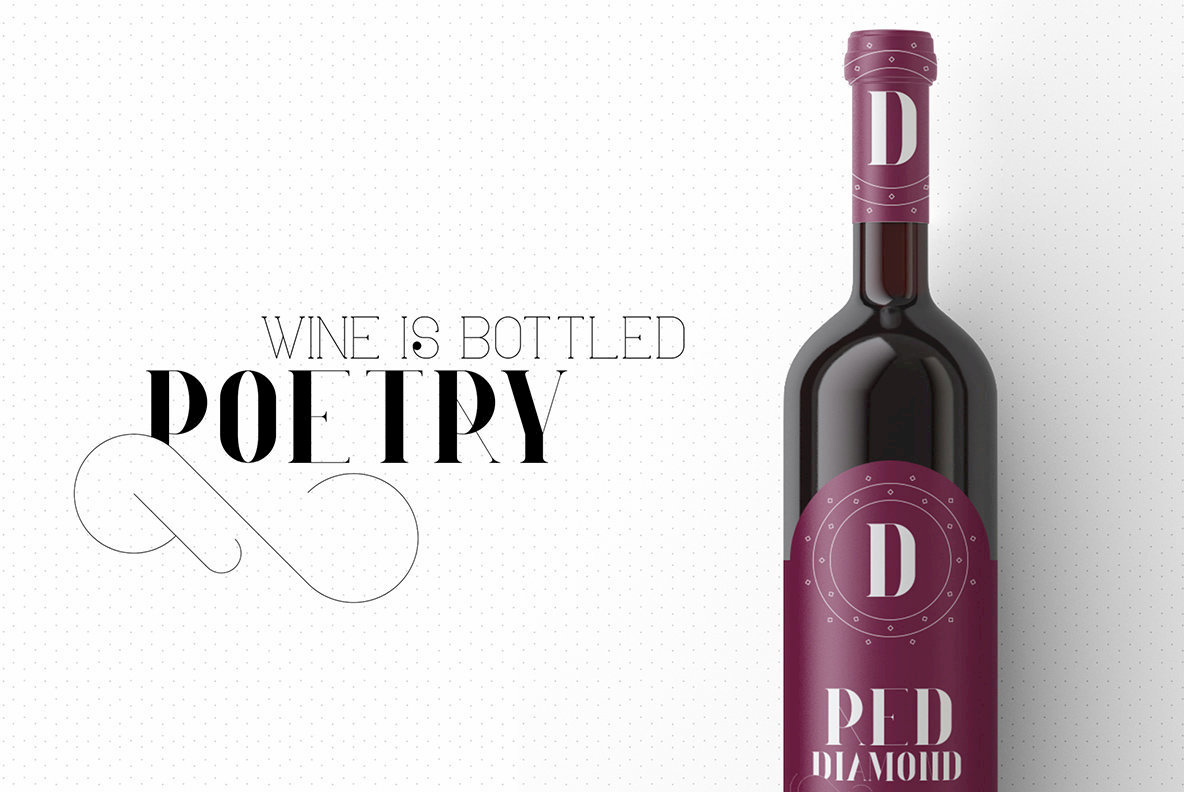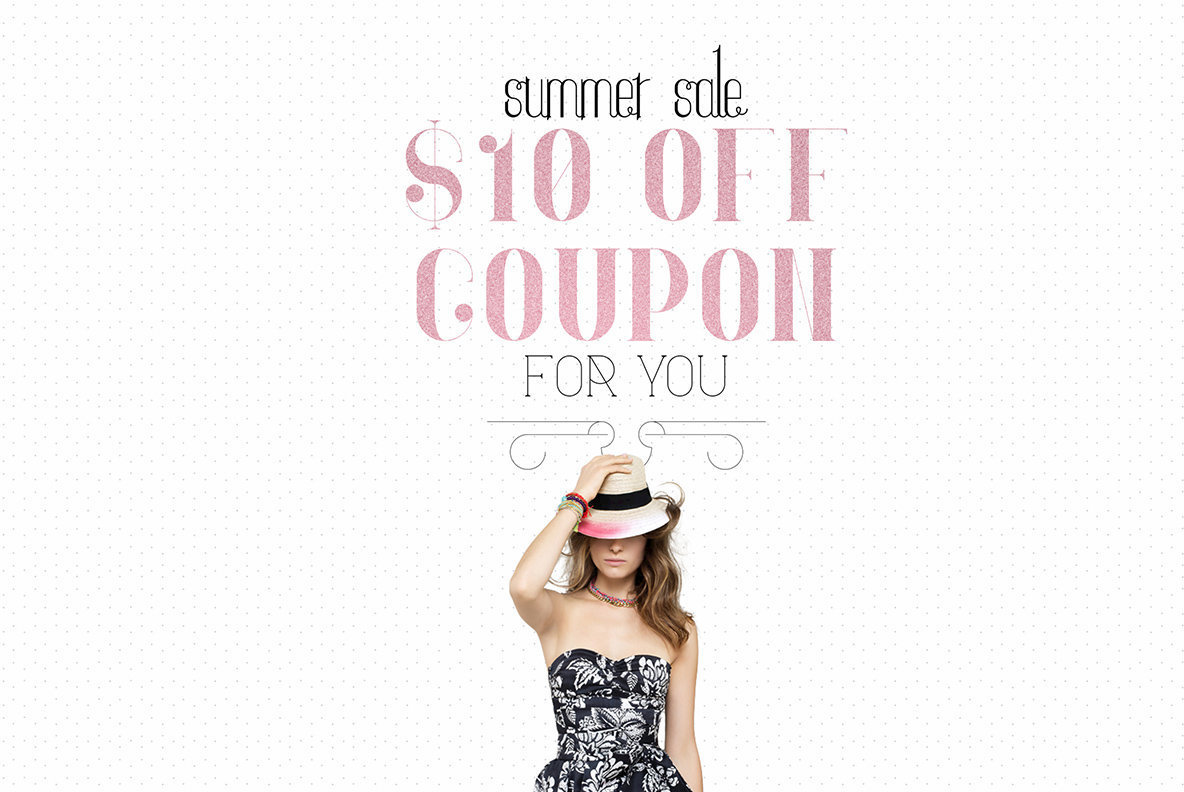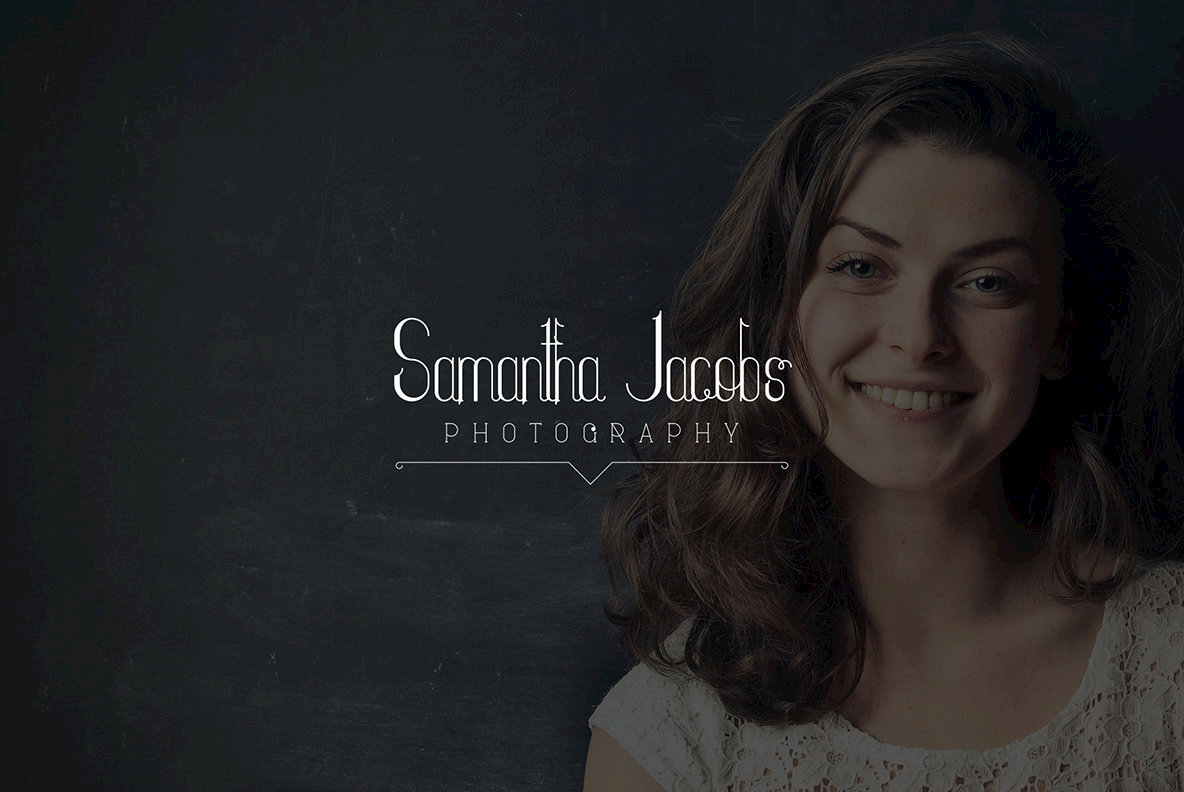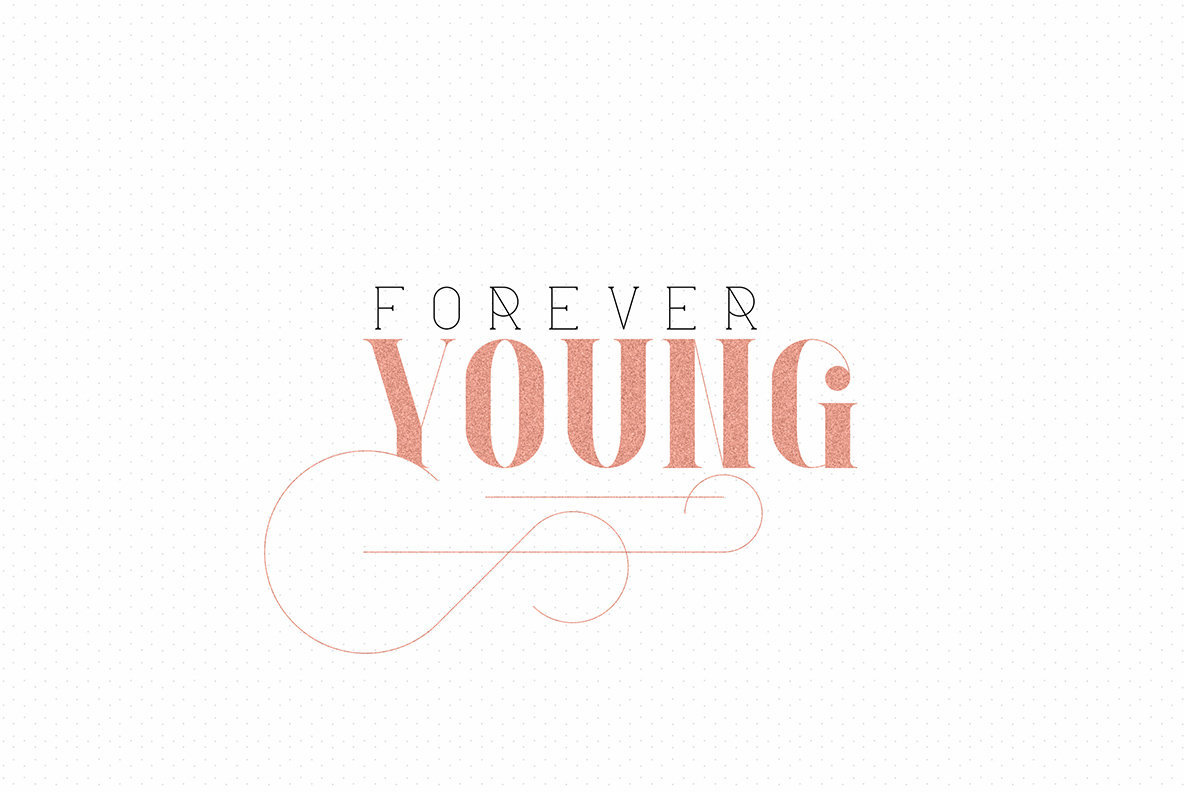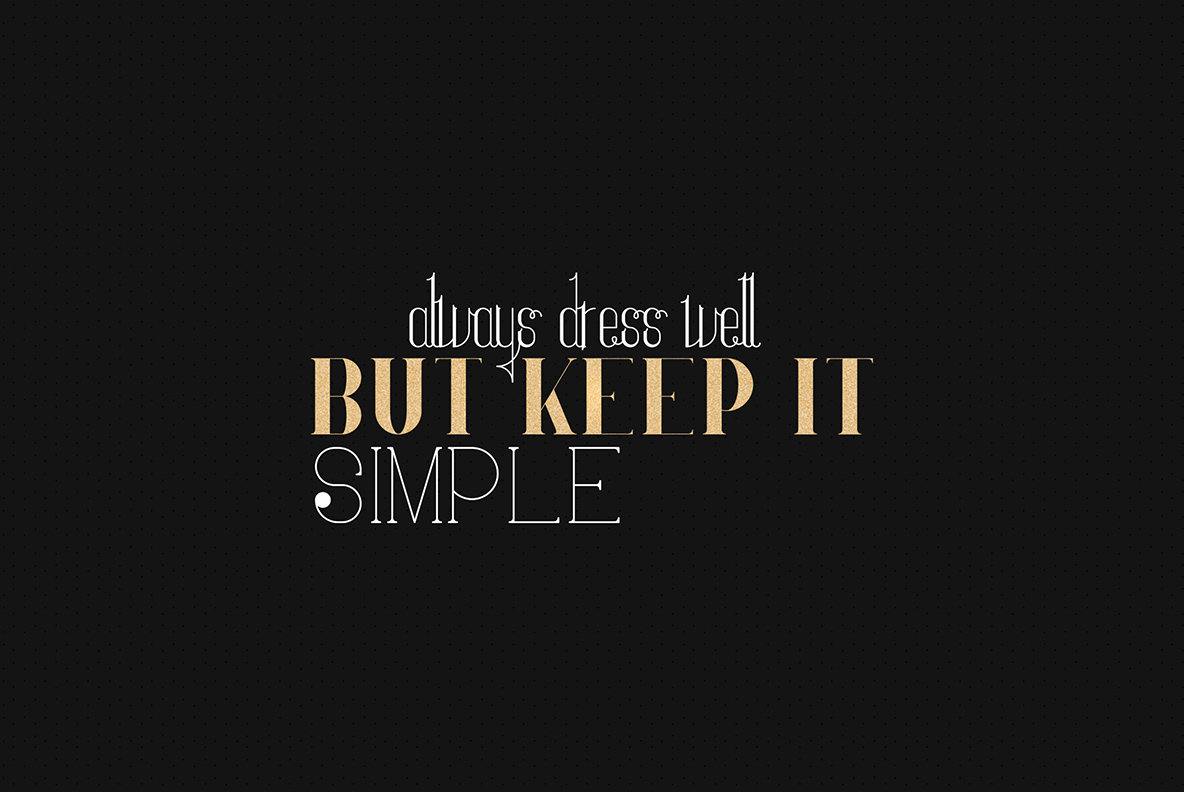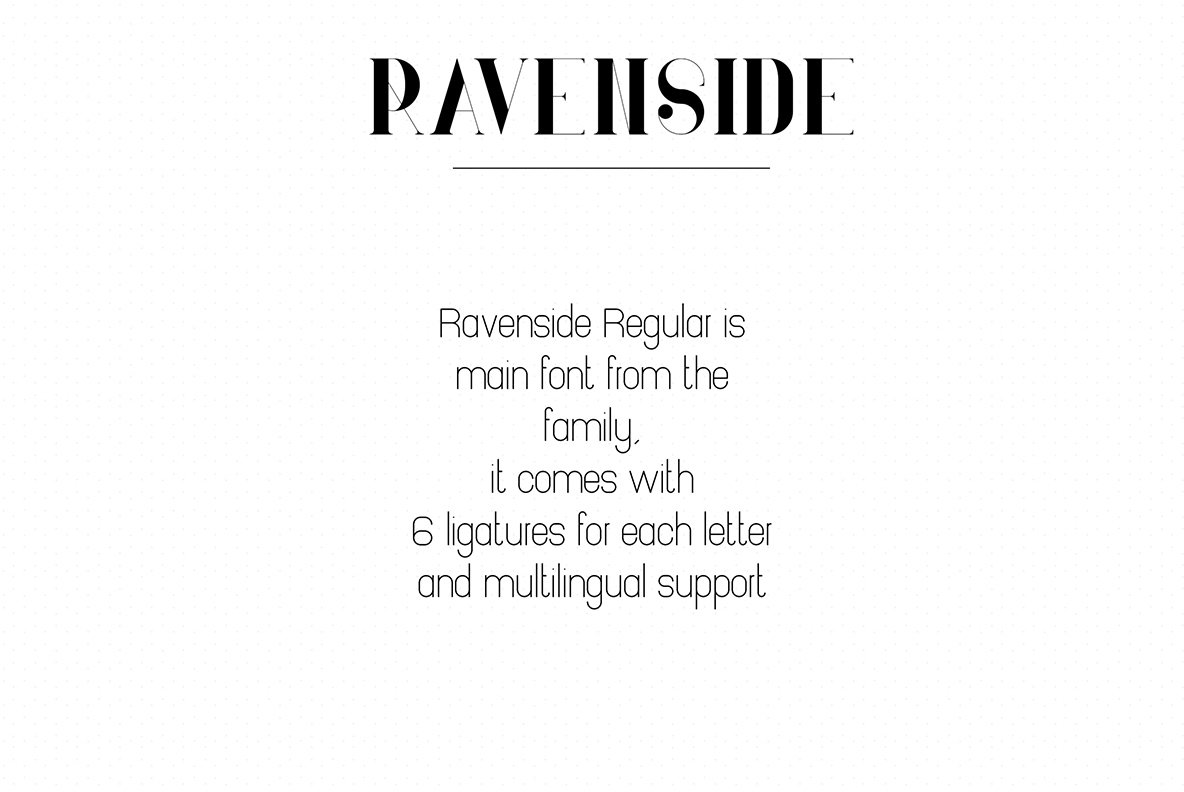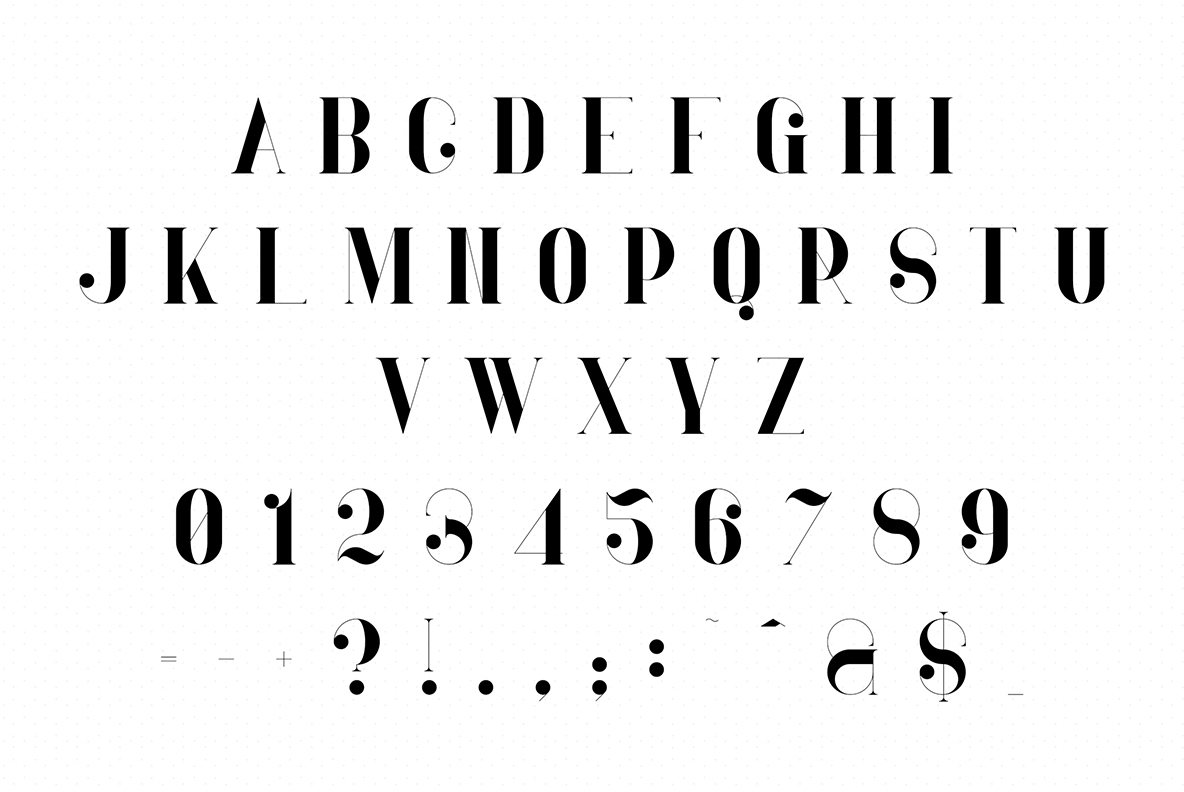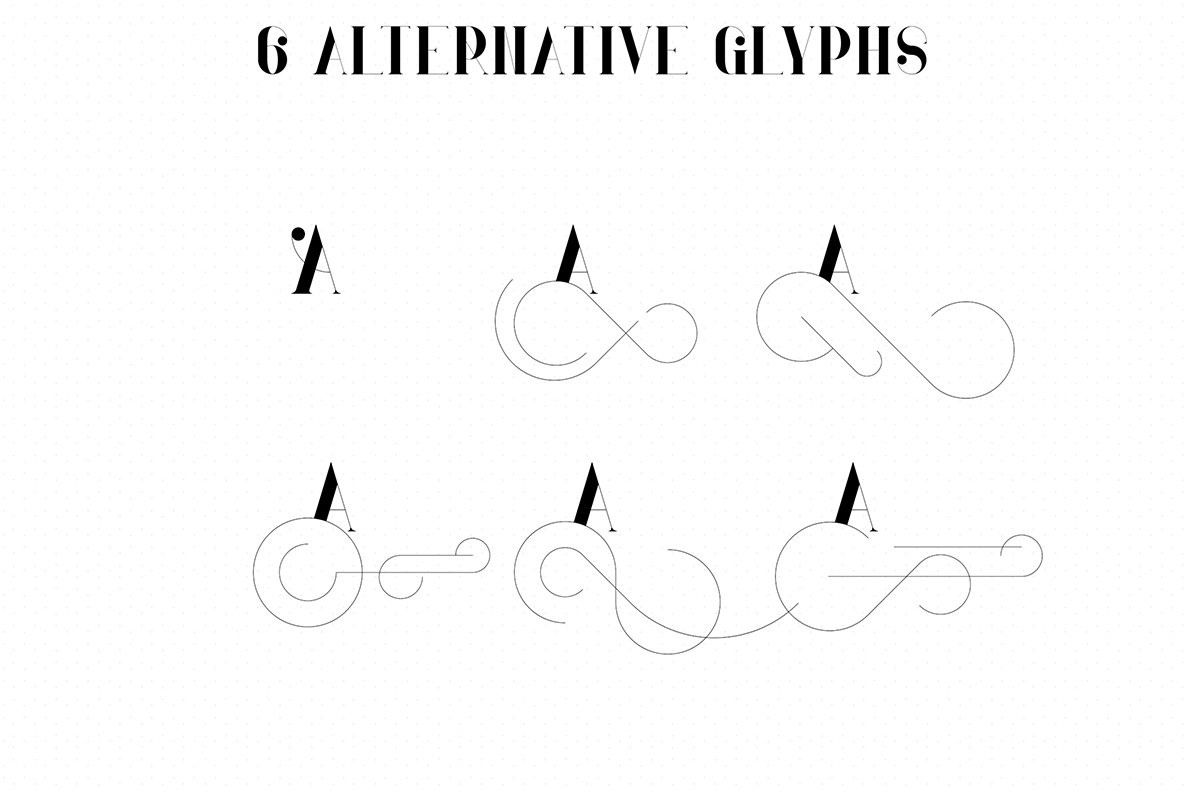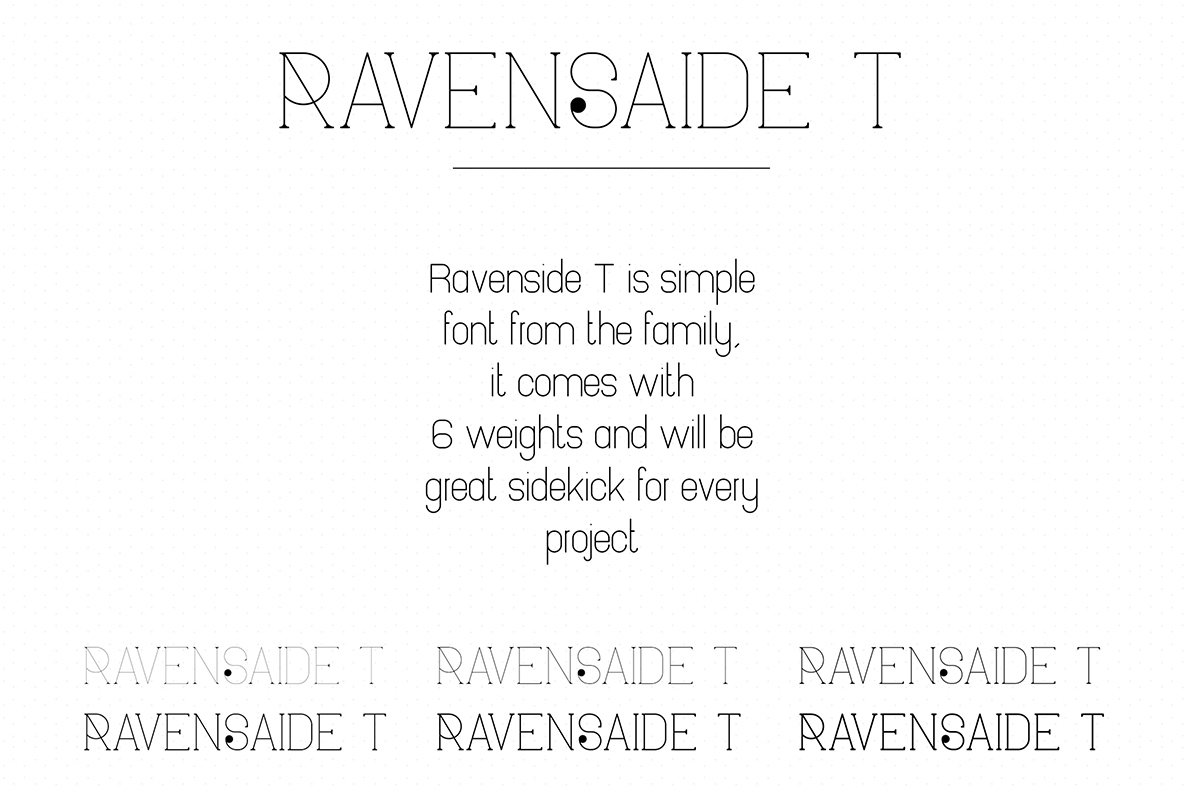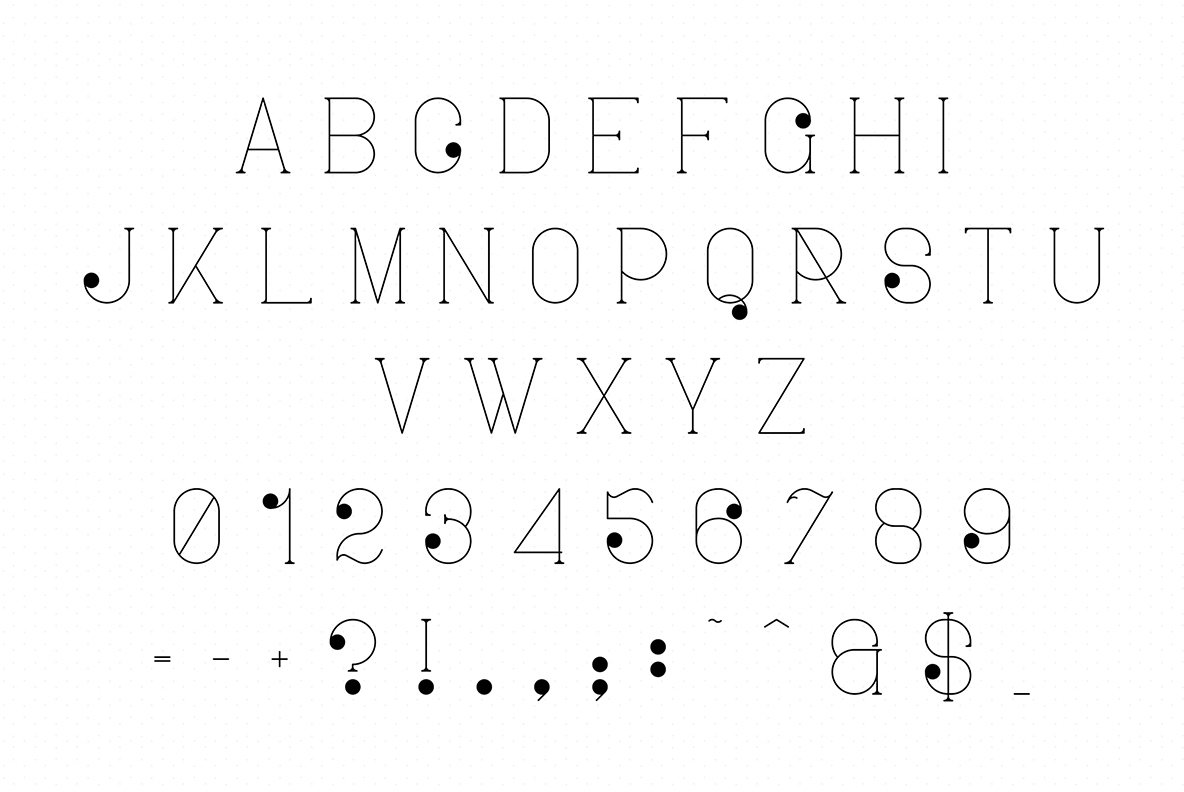
Ravenside Font
Ravenside is a sophisticated serif font family, offering elegance and versatility across its 13 distinct fonts. Esteemed for its clean and high-end appeal, this typeface is ideal for a multitude of design applications. Whether you're crafting branding assets, designing homeware, working on product packaging, or seeking the perfect magazine header, Ravenside delivers with poise and style. It adapts seamlessly to various size requirements, proving itself in both large and small-scale projects. Ravenside encourages creative excellence, providing a refined touch to any text overlay against various backgrounds. Please note, mock-ups and backgrounds used for display are not included.Ravenside: Luxurious Serif Typeface for Versatile Design